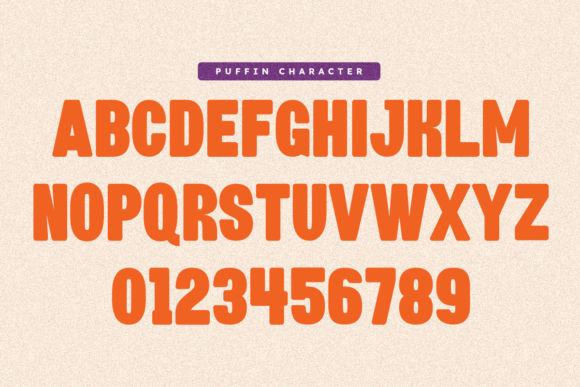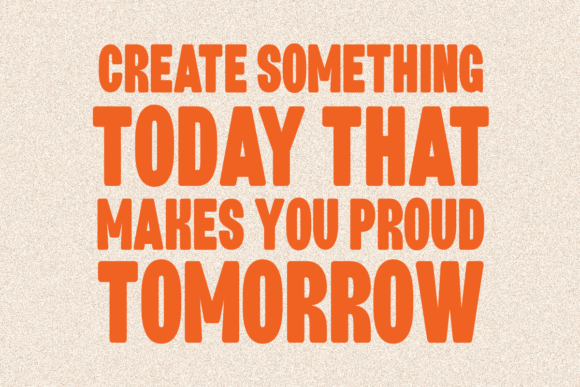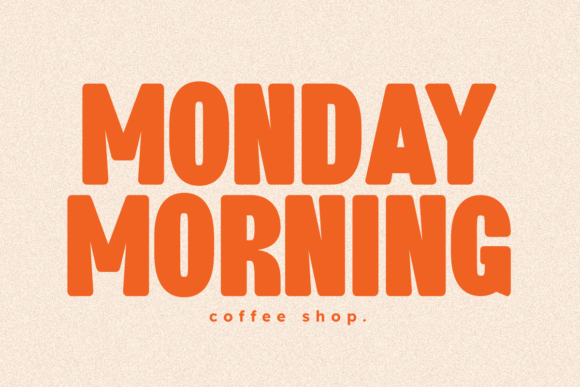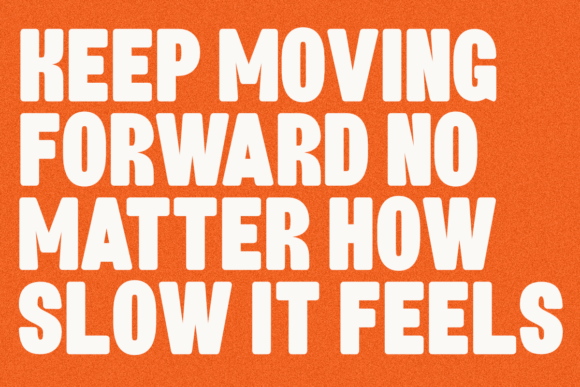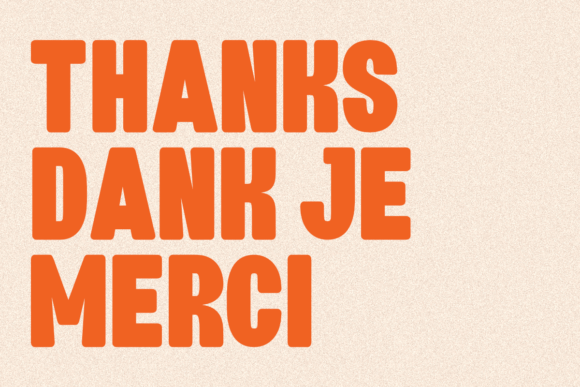
Introduction to Puffin Font
Imagine you’re brainstorming ideas for your next creative project, and you need a font that screams ‘retro chic’ without sacrificing readability. You’re on the hunt for a high-quality design resource that perfectly blends classic vibes with modern commercial appeal. If this sounds like your quest, then you’re in luck – enter the Puffin Font, a bold and versatile sans serif typeface designed to elevate your creative projects.
With its robust, compressed structural alignment and friendly rounded geometric contours, the Puffin Font is an exceptional choice for graphic designers, independent clothing brands, and craft lovers alike. Its ultra-clean vector outlines guarantee full technical compatibility with popular craft cutting software and digital vinyl plotters, making it a valuable asset for any design project.
Whether you’re building a brand identity, designing streetwear t-shirt lines, or creating social media posters, the Puffin Font ensures maximum readability and a distinct professional edge. In this article, we’ll dive into the world of Puffin Font, exploring its unique features and benefits, as well as providing tips on how to get the most out of this amazing design resource.
Key Features of Puffin Font
- Available in a single weight, the Puffin Font is perfect for projects where a clean and simple typography is desired.
- The Puffin Font is designed to be highly legible, making it an excellent choice for any creative project that requires a clear and concise typography.
Honest Review: Puffin Font
I recently had the chance to work with the Puffin Font, and I must say, it’s been a delightful experience. As a designer, I’m always on the lookout for high-quality design resources that can elevate my creative projects. The Puffin Font is a perfect addition to my collection.
- ✨ High-quality design: The Puffin Font is designed with precision, resulting in a crisp and clean appearance that’s perfect for various design applications.
- ✨ Versatile usage: This font is suitable for both digital and print projects, making it an excellent choice for designers who work on multiple platforms.
Puffin Font
Tips for Getting the Most Out of Puffin Font
To get the most out of the Puffin Font, experiment with different font sizes, colors, and combinations to create unique and eye-catching designs. You can also use the font in conjunction with other design elements, such as images and graphics, to create a cohesive look.
The Puffin Font is suitable for a variety of use cases, including:
• Logos and branding
• Social media graphics
• Web design
• Print materials
Alternatives to Puffin Font